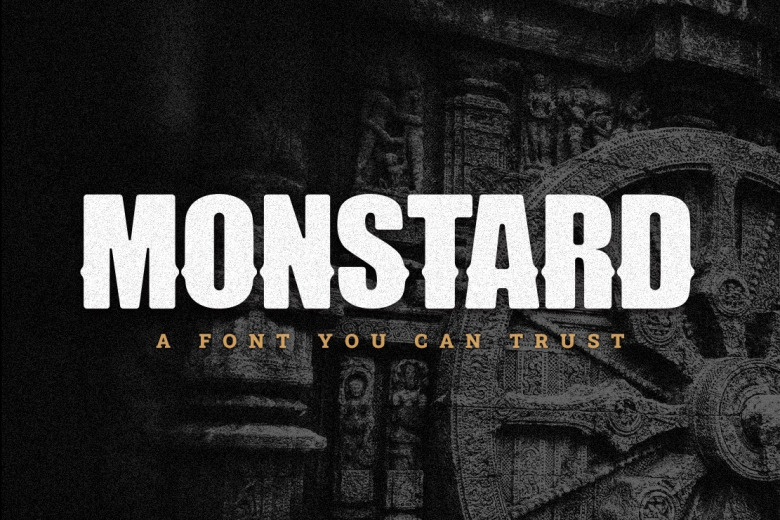
Monstard Font
Monstard Display Fonts perfect for branding projects, logo, wedding designs, social media posts, advertisements, product packaging, product designs, label, photography, watermark, invitation, stationery, and any projects that need handwriting taste.
Monstard Display Font